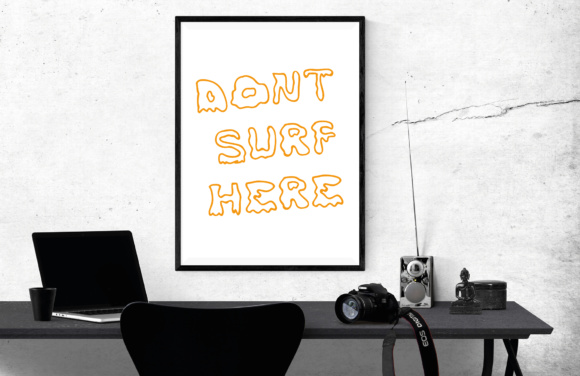
Introducing Skater Skank Font - The Epitome of Urban Edge and Expressive Flair!
Prepare to be mesmerized by Skater Skank Font, a decorative masterpiece that embodies the raw energy and captivating allure of urban sports. Inspired by the vibrant graphics, stickers, and artworks that adorn skateboards, surfboards, and BMX bikes, Skater Skank is a font that speaks to the rebellious spirit and unyielding passion of extreme sports enthusiasts.
Crafted with meticulous attention to detail, Skater Skank captures the essence of street culture, effortlessly blending edgy aesthetics with a touch of playful charm. Unleash your creativity and let your designs radiate with the vibrant energy of urban art.
With Skater Skank Font, you'll have the power to:
* **Make a Bold Statement:** Create designs that command attention and leave a lasting impression. Skater Skank's unique character and bold strokes will make your words pop off the page or screen.
* **Stand Out from the Crowd:** Embrace the individuality and non-conformist spirit of urban sports. Skater Skank is not just a font; it's a statement of your unique style and perspective.
* **Connect with Your Audience:** Tap into the emotions and experiences of urban sports enthusiasts. Let Skater Skank be the voice that resonates with their adventurous spirit and thirst for adrenaline.
Whether you're designing posters, flyers, social media graphics, or merchandise, Skater Skank Font is the perfect choice for adding a touch of urban grit and rebellious flair. Its versatility extends to a wide range of projects, including:
* Logos and Branding: Create logos and brand identities that exude the energy and excitement of urban sports.
* Posters and Flyers: Design eye-catching posters and flyers that capture the attention of event-goers and leave them craving more.
* Social Media Graphics: Elevate your social media presence with visually striking graphics that engage your audience and amplify your brand message.
* Merchandise: Create unique and stylish merchandise that reflects the urban lifestyle and appeals to extreme sports enthusiasts.
Skater Skank Font is more than just a collection of letters and symbols; it's a gateway to the vibrant world of urban sports and street culture. It's a font that will ignite your creativity and empower you to create designs that resonate with a generation that embraces individuality and pushes boundaries.